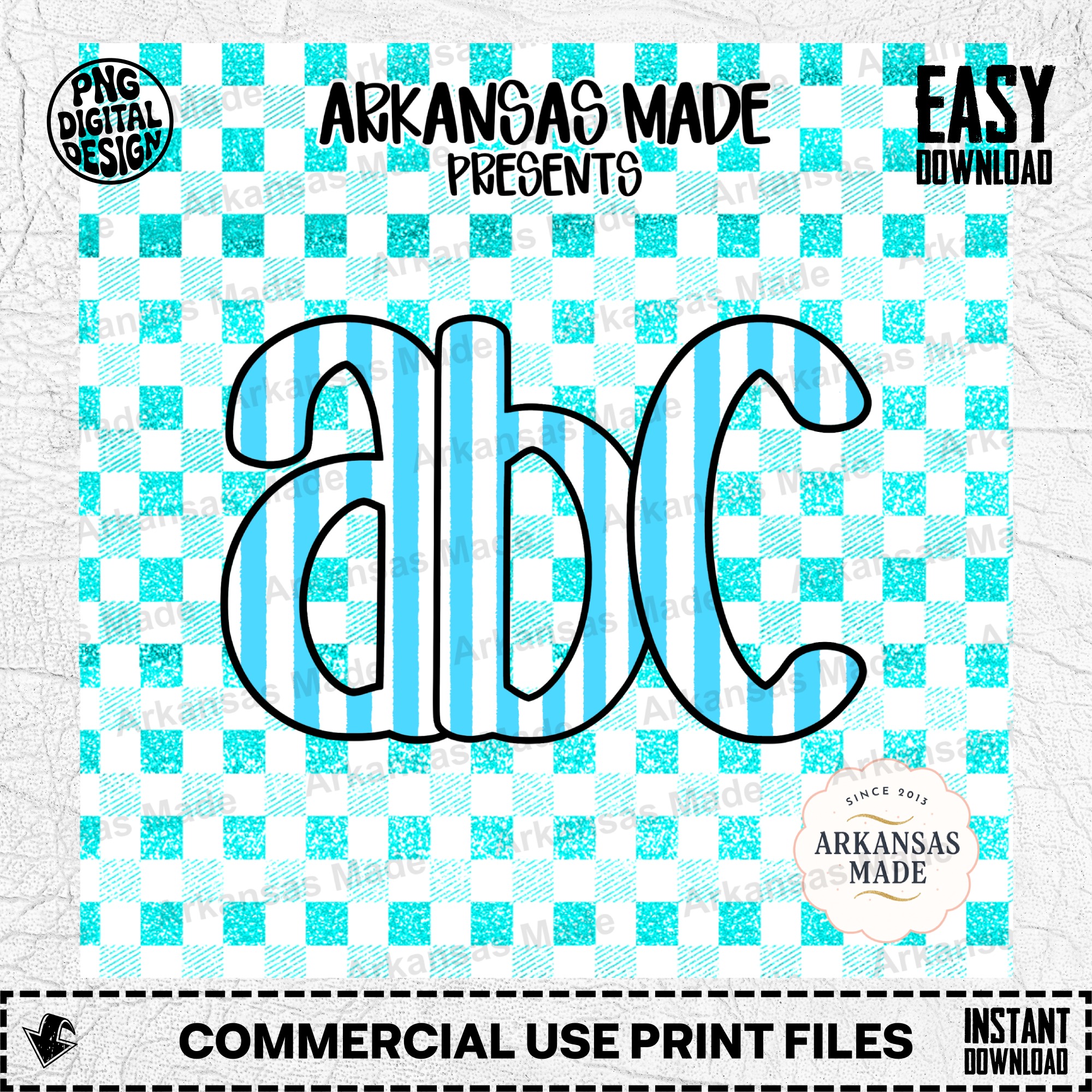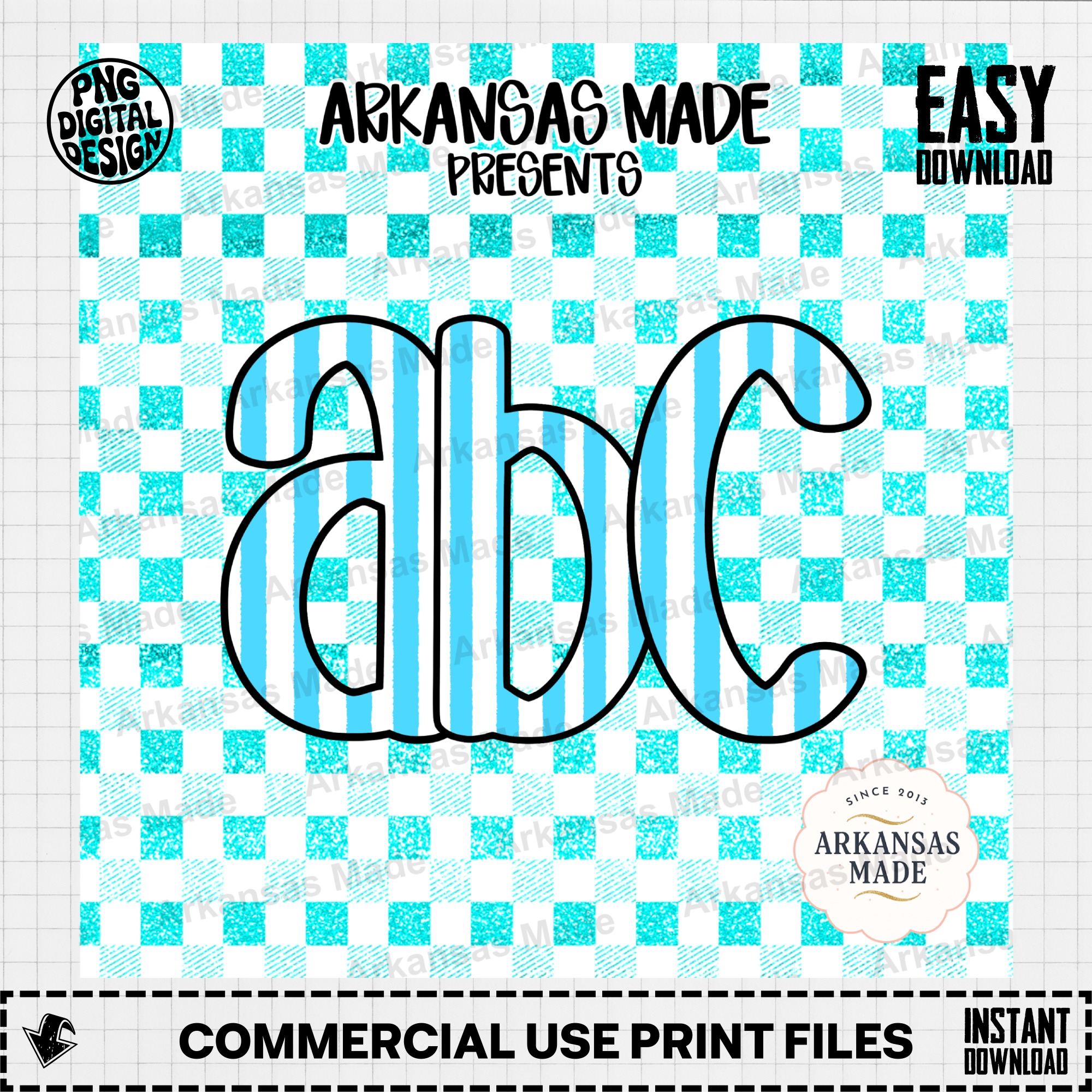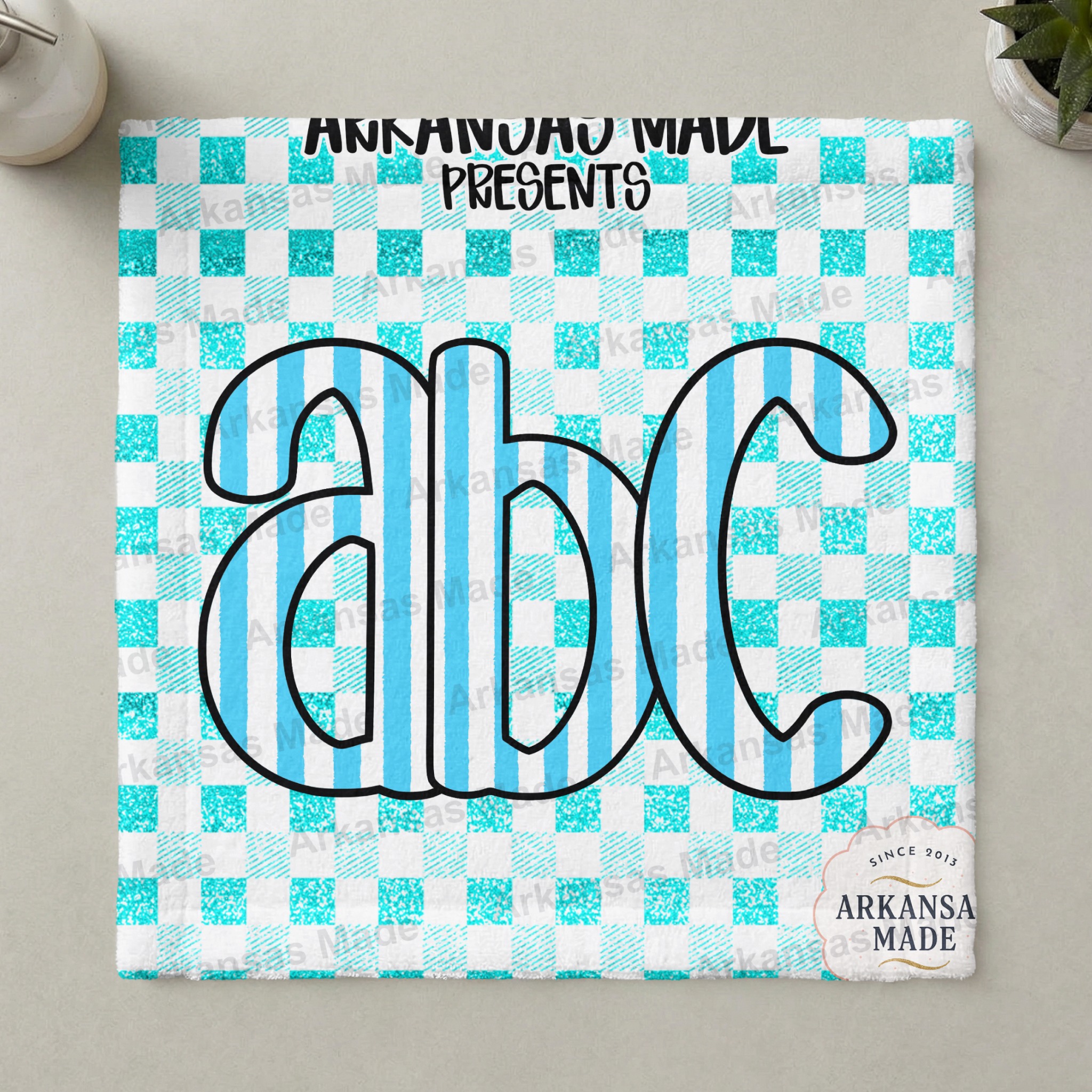
Dive into your next crafting project with this vibrant Turquoise Gingham Stripe Letters Digital Download Alpha Set, featuring a fun faux glitter plaid pattern. Perfect for personalized designs! This cheerful alphabet PNG bundle offers a playful preppy aesthetic, ideal for creating unique custom apparel, nursery decor, or party invitations. Whether you’re a DIY enthusiast, teacher, or small business owner, these versatile letters will bring a touch of sparkle and charm to any project. Use for baby shower crafts, birthday gifts, or any personalized creation that needs a pop of color and fun.